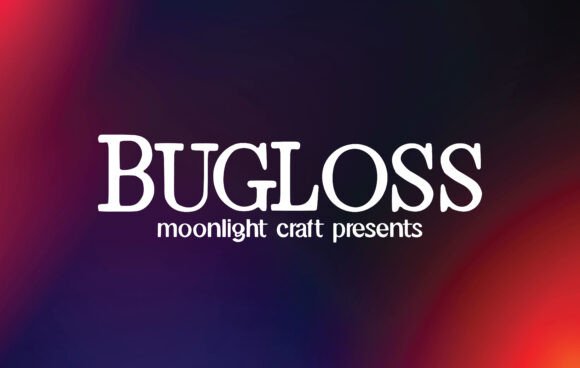
Introducing Bugloss Font: Elevate Your Creative Projects with Style and Versatility
In the world of typography, fonts play a crucial role in conveying messages, expressing emotions, and creating a lasting impression. For designers, artists, and creatives, finding the perfect font can be a daunting task. However, with the introduction of Bugloss Font, your search is over. This font is crafted to become a go-to favorite in your collection, offering the perfect blend of style and versatility to elevate any creative project.
The Perfect Blend of Style and Versatility
Bugloss Font is designed to provide a unique and captivating visual experience. Its elegant and refined aesthetic makes it an ideal choice for a wide range of applications, from magazine headlines and t-shirts to social media posts and branding materials. The font’s versatility lies in its ability to adapt seamlessly to different contexts, ensuring that your message is conveyed with clarity and sophistication.
Key Features of Bugloss Font
- Easy to Read: Bugloss Font boasts exceptional legibility, making it perfect for both titles and body text. Its clear and concise letterforms ensure that your message is conveyed with ease.
- Versatile: Whether you’re designing for print or digital media, Bugloss Font adapts effortlessly to different formats and contexts.
- Stylish: With its elegant and refined aesthetic, Bugloss Font adds a touch of sophistication to any creative project.
Endless Creative Possibilities
Bugloss Font is an incredibly versatile font that can be used in a wide range of creative projects. Here are some examples of how you can utilize this amazing font:
1. Magazine Headlines and Articles
Use Bugloss Font to create eye-catching headlines and engaging articles that capture the attention of your readers. Its elegant and refined aesthetic makes it perfect for fashion, lifestyle, and entertainment publications.
2. T-Shirts and Apparel
Bugloss Font is an excellent choice for designing t-shirts, hoodies, and other apparel. Its stylish and modern aesthetic ensures that your designs stand out from the crowd.
3. Social Media Posts
Elevate your social media presence with Bugloss Font. Use it to create stunning graphics, posts, and stories that engage and captivate your audience.
4. Branding Materials
Establish a strong brand identity with Bugloss Font. Use it to create logos, business cards, brochures, and other marketing materials that reflect your brand’s personality and values.
5. Wedding Invitations and Greeting Cards
Bugloss Font is perfect for creating beautiful and elegant wedding invitations, greeting cards, and other stationery. Its refined aesthetic adds a touch of sophistication to any design.
Why Choose Bugloss Font?
With so many fonts available, why choose Bugloss Font? Here are some compelling reasons:
1. Unique and Captivating Design
Bugloss Font boasts a unique and captivating design that sets it apart from other fonts. Its elegant and refined aesthetic ensures that your creative projects stand out from the crowd.
2. Exceptional Legibility
Bugloss Font is designed to be easy to read, making it perfect for both titles and body text. Its clear and concise letterforms ensure that your message is conveyed with ease.
3. Versatility and Flexibility
Bugloss Font is an incredibly versatile font that can be used in a wide range of creative projects. Its adaptability ensures that it fits seamlessly into different contexts and formats.
In conclusion, Bugloss Font is an exceptional addition to any designer’s collection. Its unique and captivating design, exceptional legibility, and versatility make it the perfect choice for a wide range of creative projects. Whether you’re designing magazine headlines, t-shirts, social media posts, branding materials, wedding invitations, or greeting cards, Bugloss Font is the ideal font to elevate your designs and convey your message with style and sophistication.